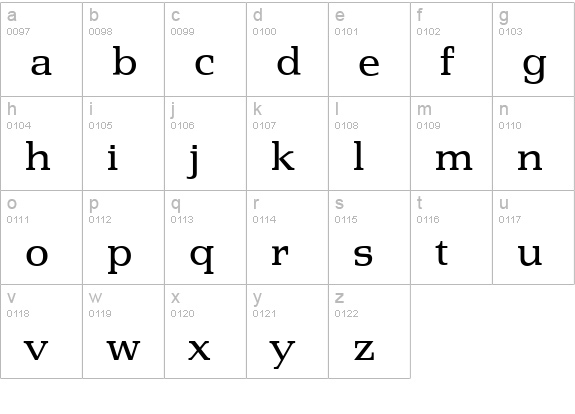
PenthouseSerial-Regular is the standard, neutral variant in the PenthouseSerial typeface family \xE2\x80\x94 well suited to general body text, paragraphs, and standard typographic work.
PenthouseSerial-Regular font is a sleek and elegant typeface that exudes sophistication and modernity. With its clean lines and distinctive letterforms, this font is perfect for adding a touch of class to any design project. Whether you're designing a logo, website, or marketing materials, PenthouseSerial-Regular font will make your text stand out with its timeless appeal. The best part is that PenthouseSerial-Regular font is available for free download at FontsMarket.com. This means you can easily access this stylish font and incorporate it into your projects without any cost. Don't miss out on the opportunity to elevate your designs with PenthouseSerial-Regular font - download it today and give your work a touch of luxury and refinement.